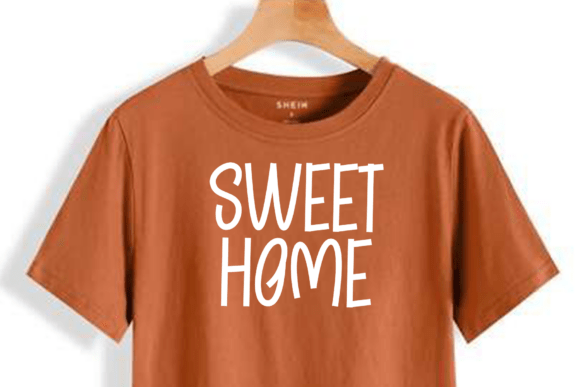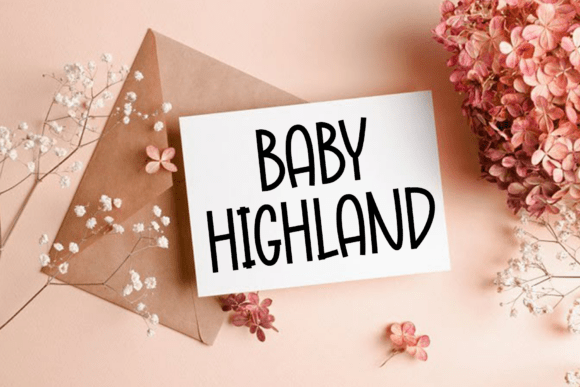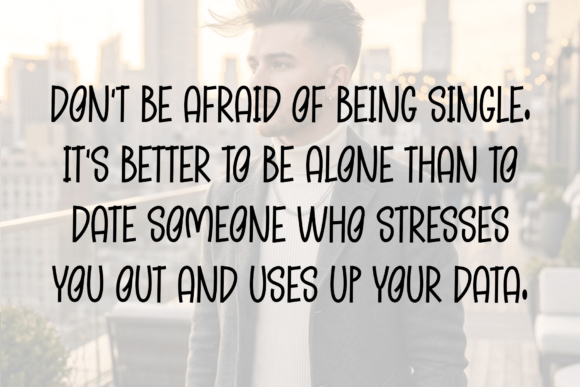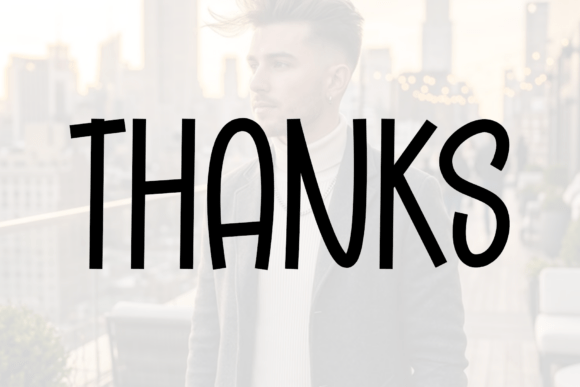
Introducing Bigboy Font: Elevate Your Design with Elegance and Sophistication
In the world of typography, the right font can make all the difference in elevating your design from ordinary to extraordinary. For designers and crafters seeking a unique and professional touch, Bigboy Font is an exceptional addition to the modern handwritten collection. This stunning font is designed to evoke a sense of clarity and crisp elegance, perfect for projects that demand a refined aesthetic.
The Distinctive Features of Bigboy Font
Bigboy Font boasts tall, thin strokes with a subtle, airy slant, giving it a distinctive and sophisticated look. This elegant design makes it an ideal choice for various applications, including travel photography, branding for outdoor gear, and sophisticated web design. The clean and approachable style of Bigboy Font ensures that your message is conveyed with precision and style, making it perfect for designers and crafters who strive for perfection.
Why Choose Bigboy Font?
Bigboy Font offers a range of benefits that make it an attractive choice for designers and crafters. Some of the key advantages include:
• Unique and Professional: Bigboy Font is a standout in the modern handwritten collection, offering a fresh and distinctive look that sets it apart from other fonts.
• Elegant Aesthetic: The tall, thin strokes and subtle slant of Bigboy Font create a refined aesthetic that feels as fresh as a mountain breeze.
• Versatile: Bigboy Font is suitable for a wide range of applications, from travel photography and outdoor gear branding to sophisticated web design.
• Clean and Approachable: The clean and approachable style of Bigboy Font makes it easy to read and understand, ensuring that your message is conveyed with precision.
Applications of Bigboy Font
Bigboy Font is an incredibly versatile font that can be used in various design projects. Some of the most suitable applications include:
• Travel Photography: Bigboy Font is perfect for travel photography, adding a touch of elegance and sophistication to your images.
• Outdoor Gear Branding: The clean and approachable style of Bigboy Font makes it an excellent choice for branding outdoor gear, conveying a sense of adventure and freedom.
• Sophisticated Web Design: Bigboy Font is ideal for sophisticated web design, adding a touch of refinement and elegance to your website.
Tips for Using Bigboy Font
To get the most out of Bigboy Font, consider the following tips:
• Pair with Other Fonts: Experiment with pairing Bigboy Font with other fonts to create a unique and visually appealing combination.
• Adjust Font Size: Adjust the font size to suit your design needs, ensuring that Bigboy Font is used effectively in your project.
• Use in Headings and Titles: Bigboy Font is perfect for headings and titles, adding a touch of elegance and sophistication to your design.
Font Name Bigboy Font
Author Preketek texs
In conclusion, Bigboy Font is an exceptional addition to any design project, offering a unique and professional touch that elevates your design from ordinary to extraordinary. With its elegant aesthetic, versatile applications, and clean and approachable style, Bigboy Font is perfect for designers and crafters seeking to add a touch of sophistication to their work.